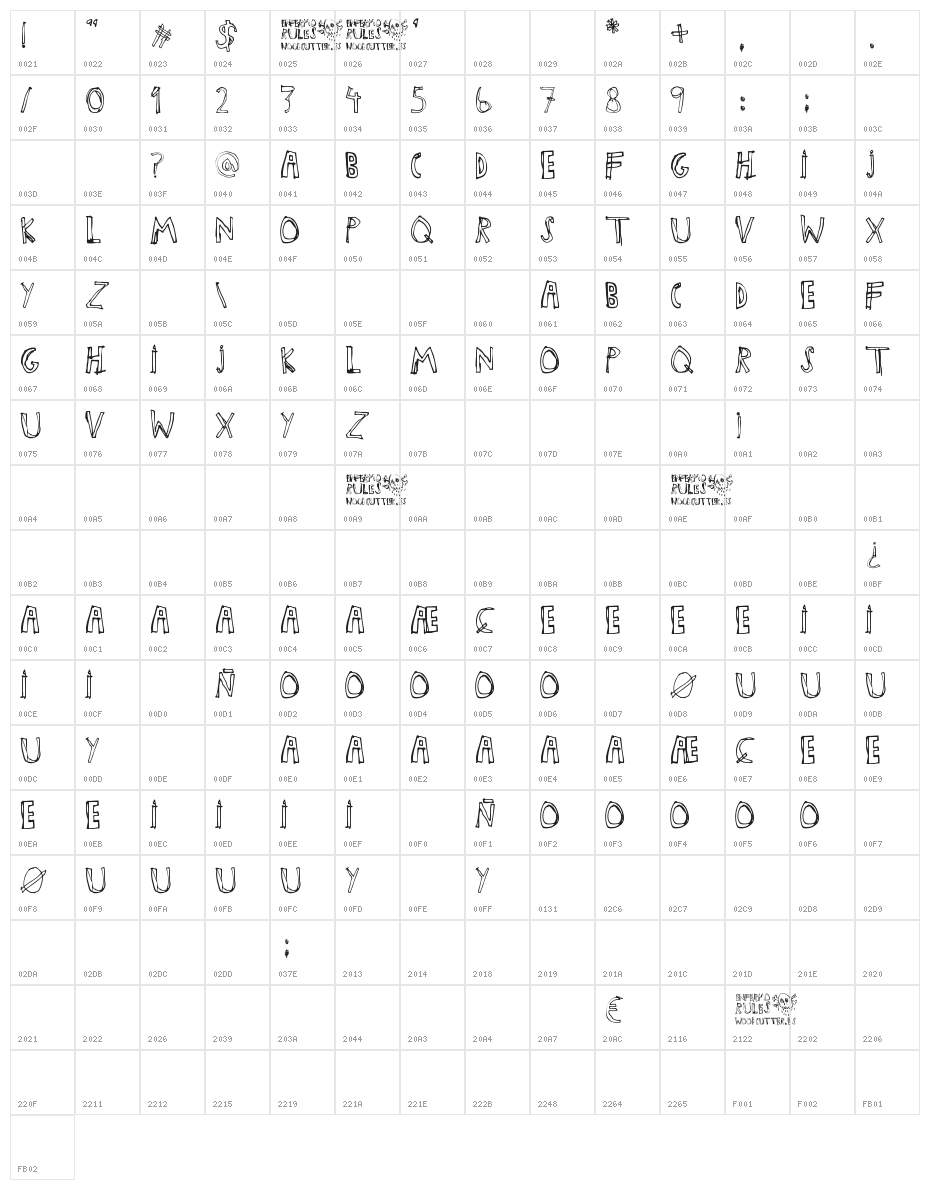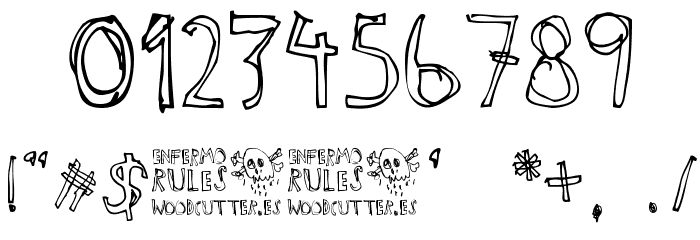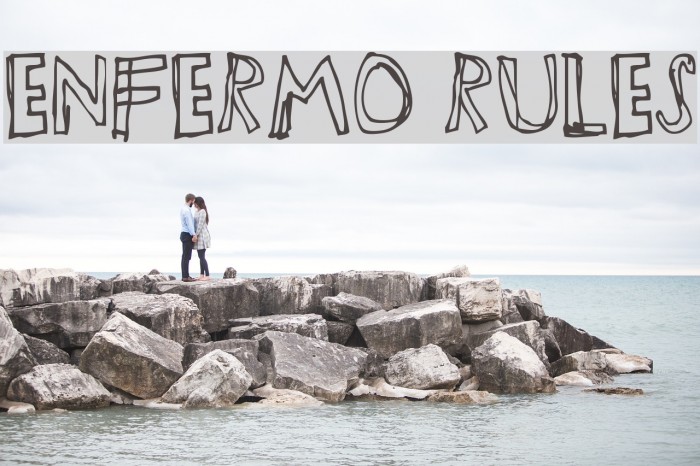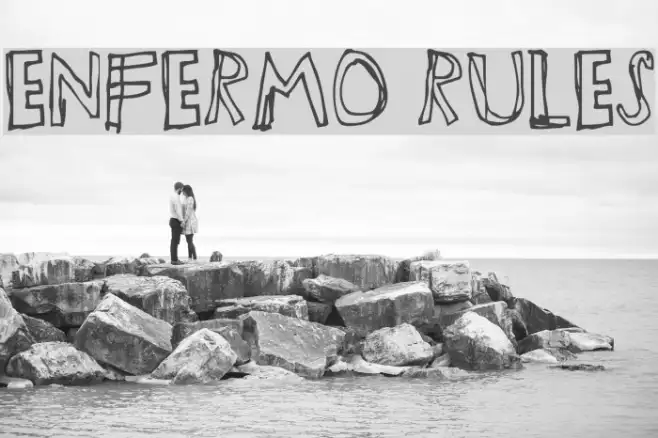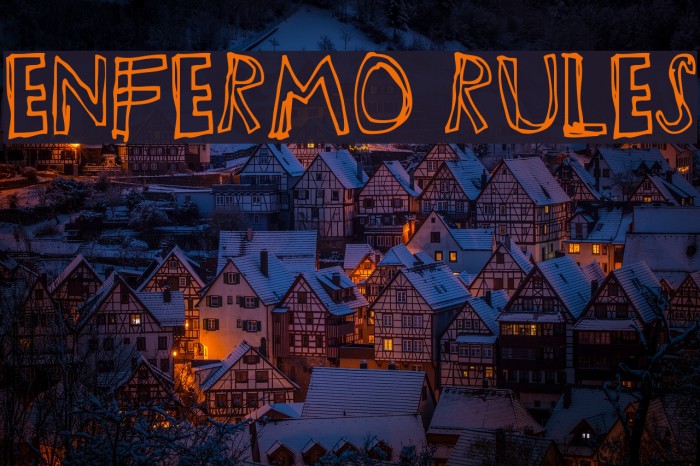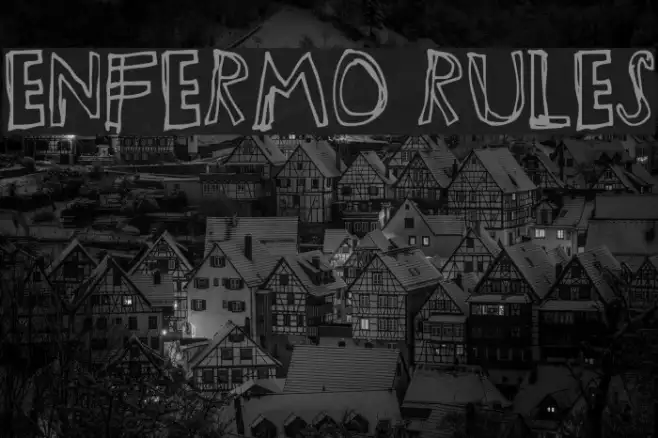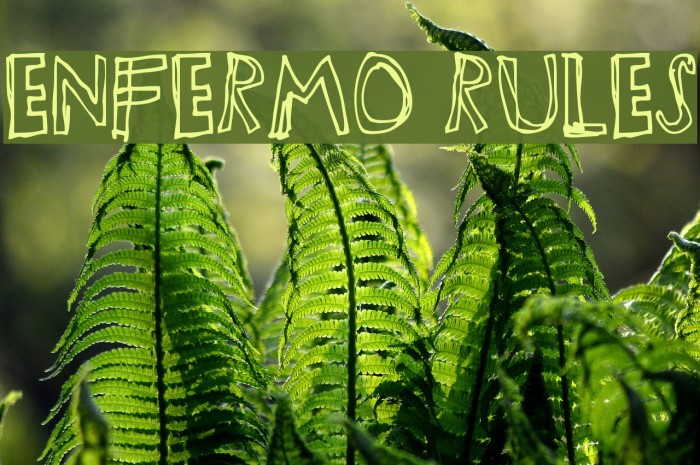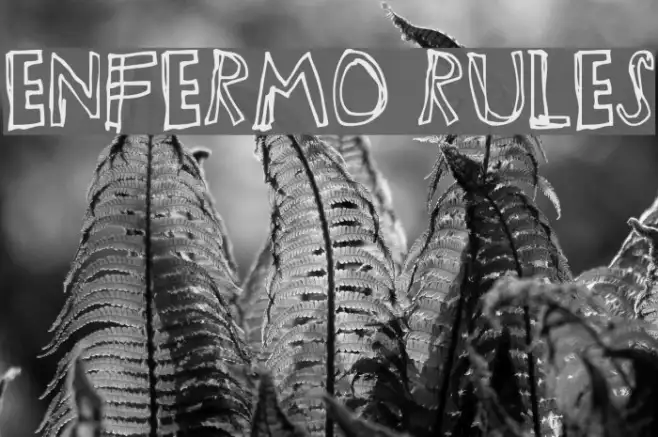
Enfermo Rules Font
Enfermo Rules Description
This font features a playful and quirky design with a hand-drawn aesthetic. The characters are outlined with a bold, uneven stroke, giving them a dynamic and energetic feel. The uppercase and lowercase letters maintain a consistent style, with exaggerated curves and angles that add to the font's whimsical nature. Numbers and special characters follow the same artistic approach, ensuring a cohesive look across all elements. The font's unique style makes it stand out, making it suitable for projects that require a fun and informal touch.
| Proposed Projects | Ideal for children's books, comic strips, playful branding, and creative posters. |